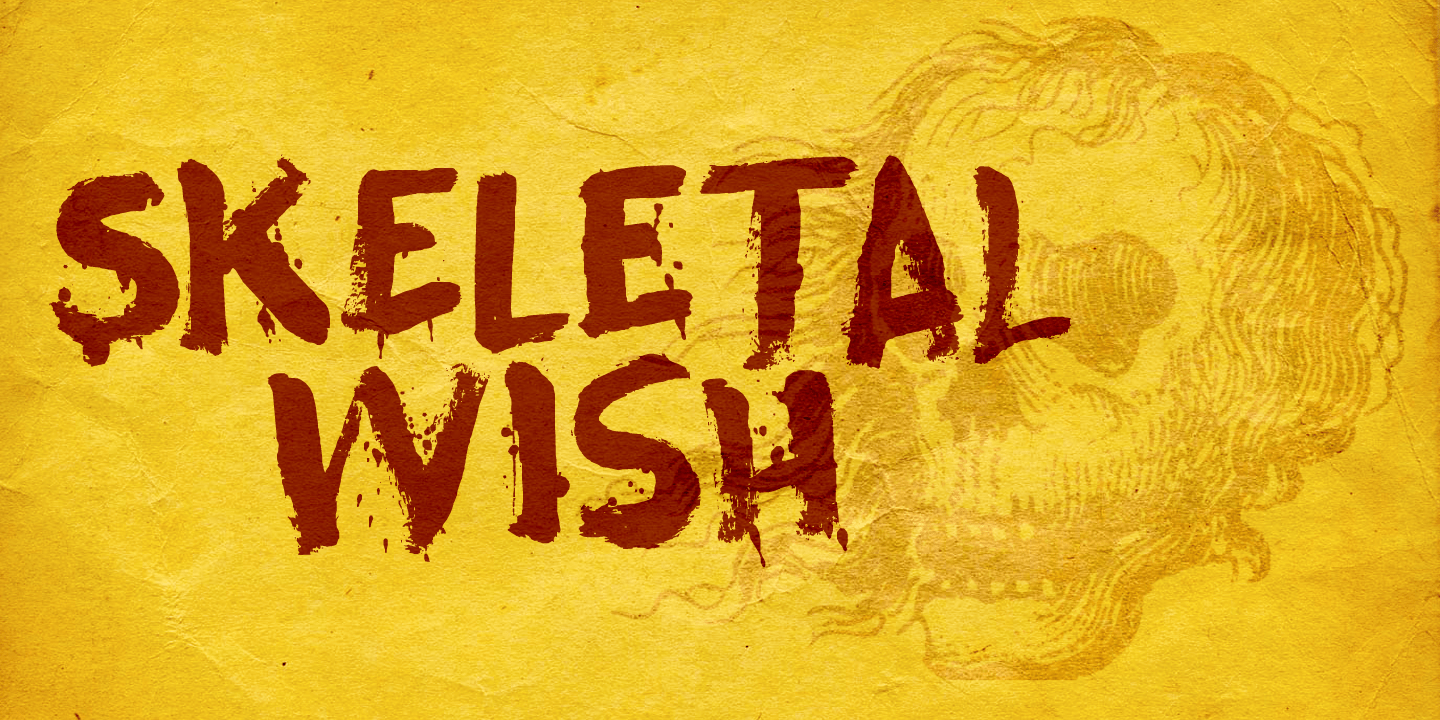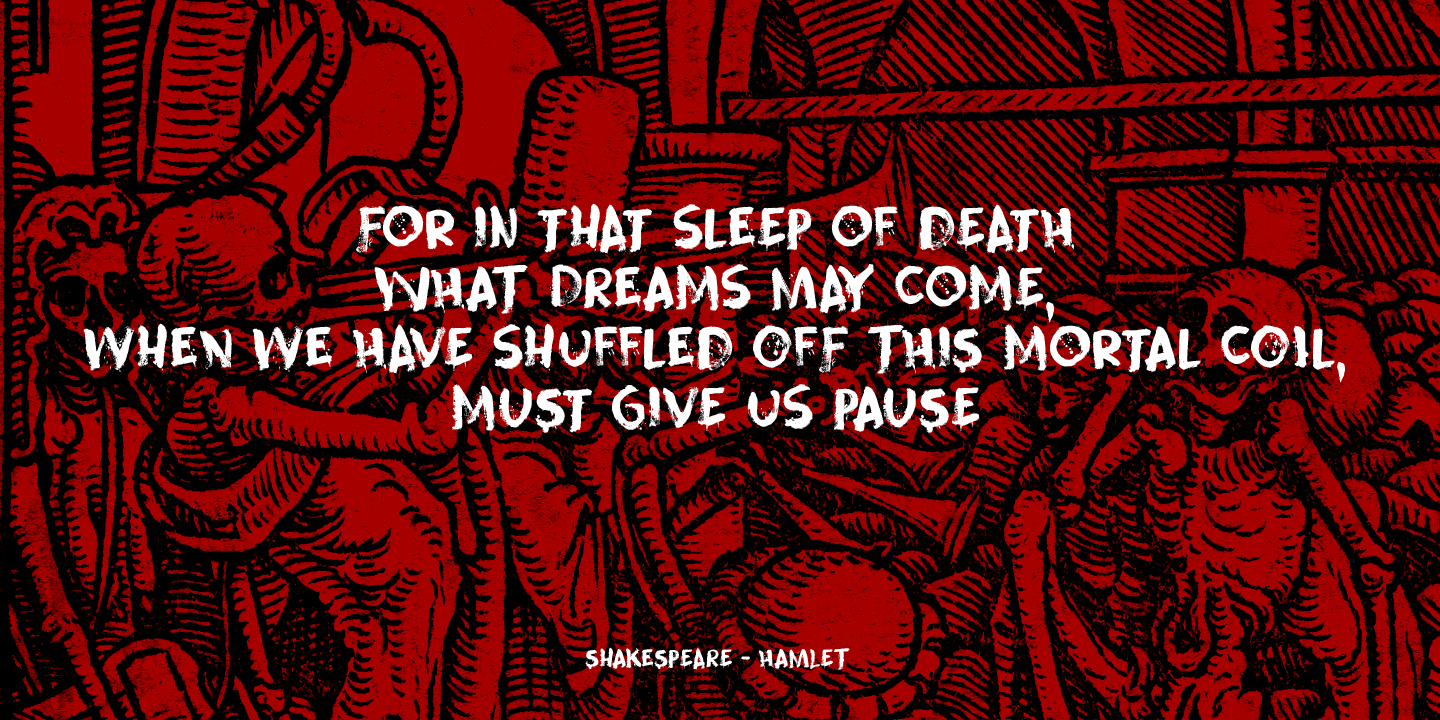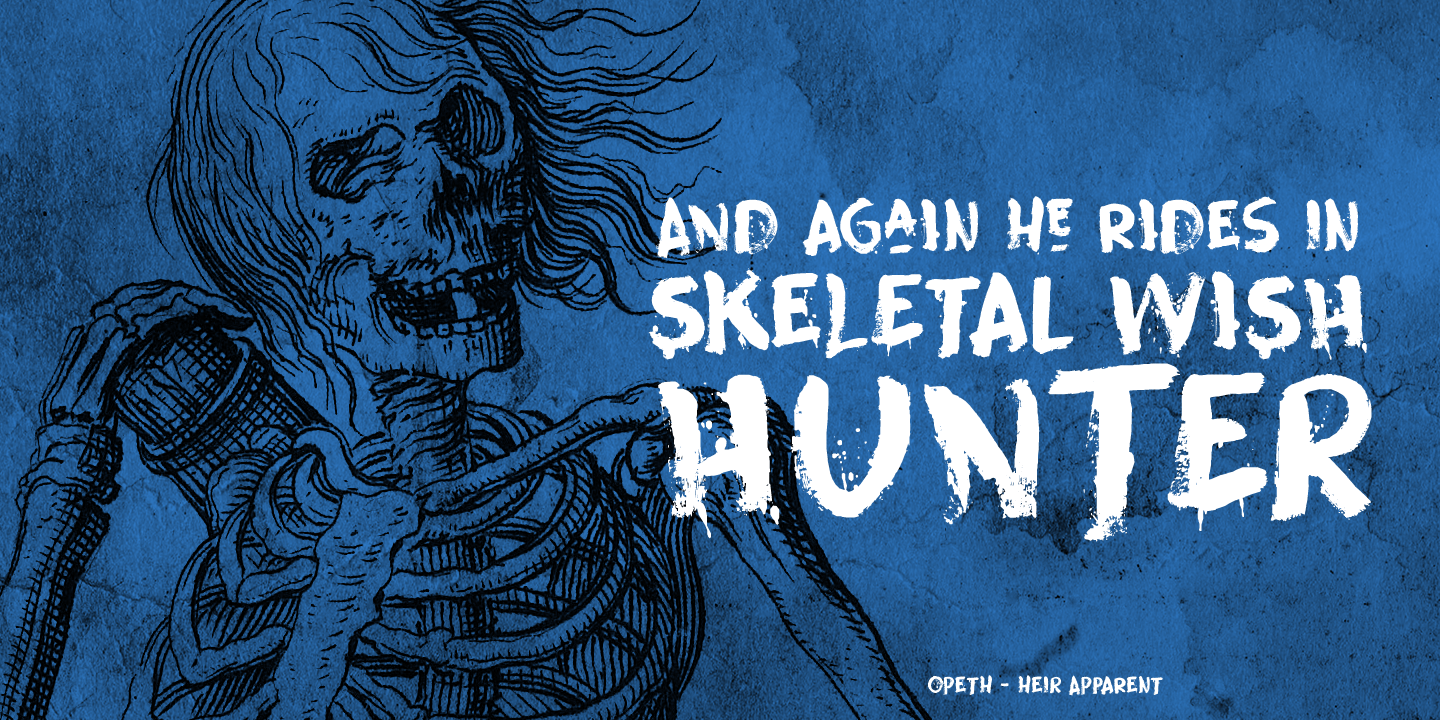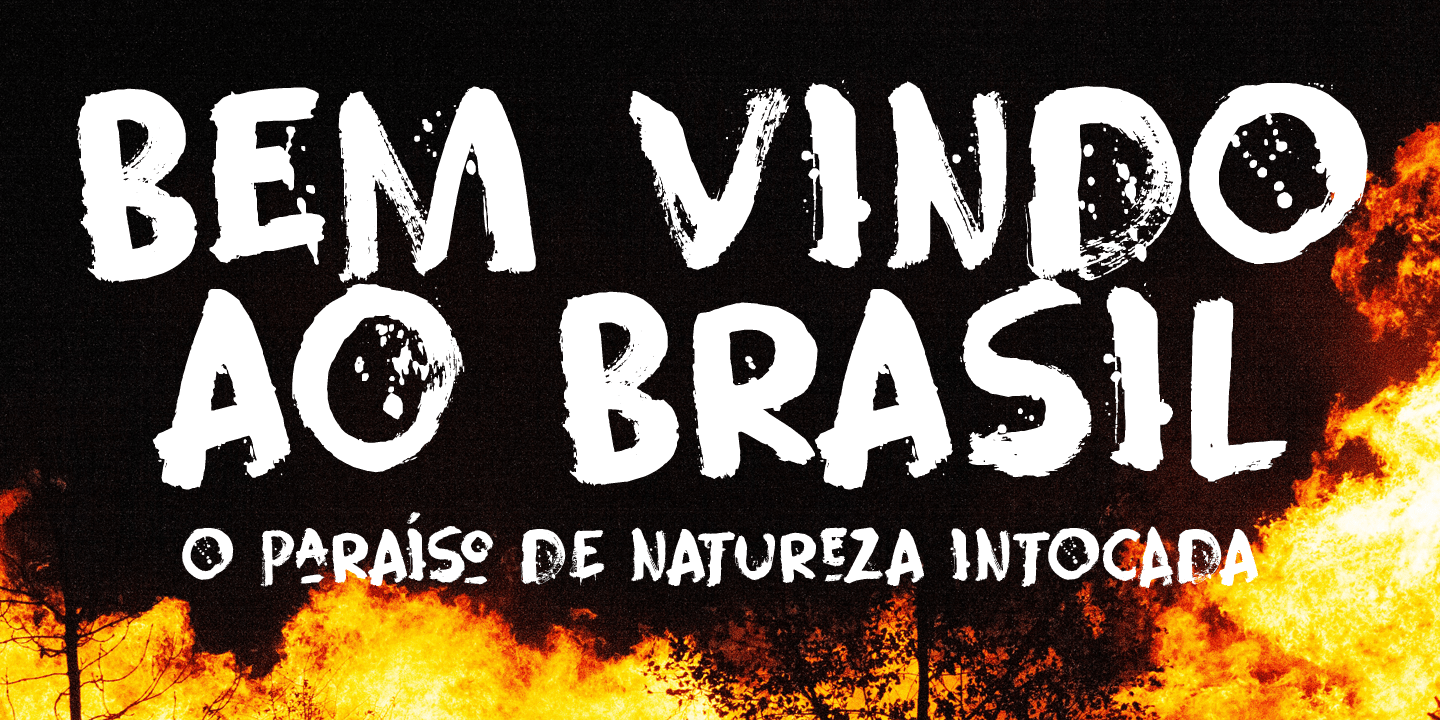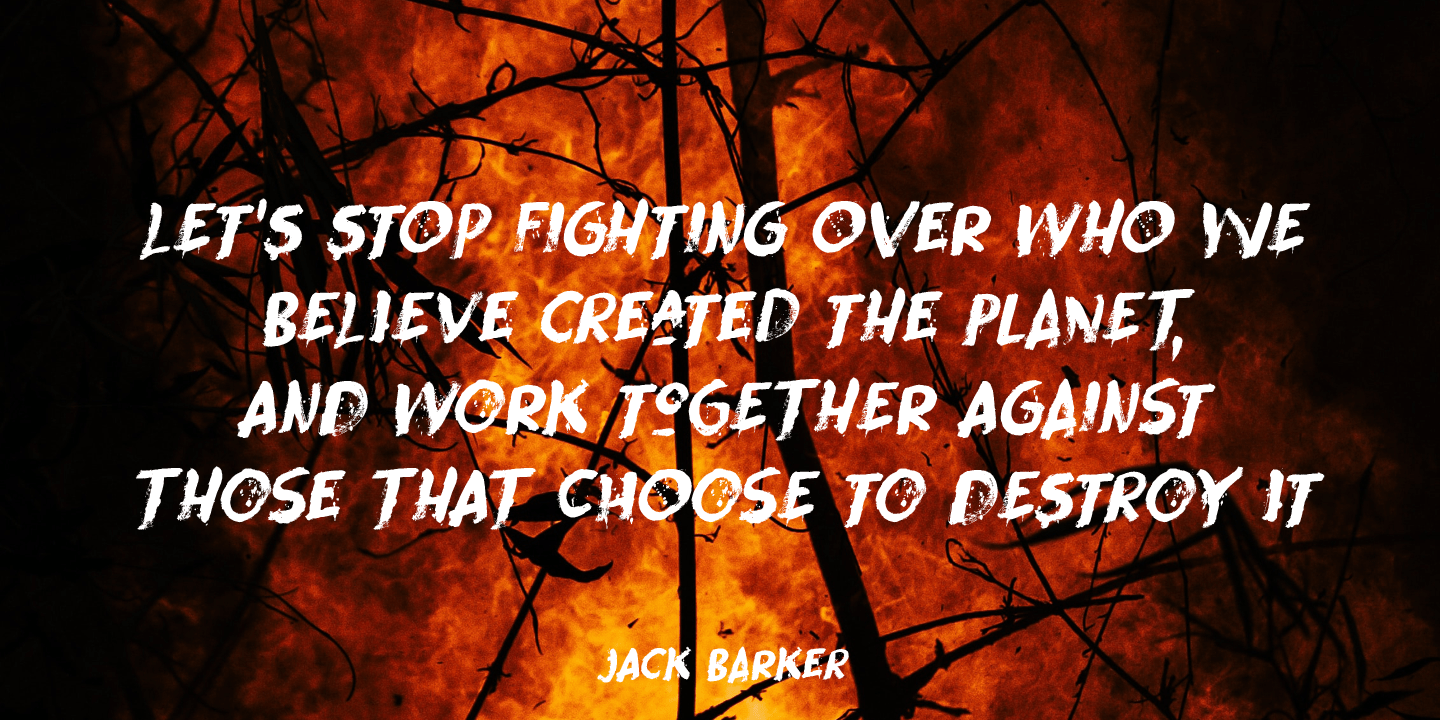
Skeletal Wish
Skeletal Wish is a line from one of my favourite Opeth songs: Heir Apparent. The lyrics are pretty veiled and bleak, describing the destruction and downfall of something that once was beautiful. I am worried about what is happening with our planet: the Amazon forest is burning down, our oceans are full of plastic and the earth is warming up. I had to think of this when I created Skeletal Wish and I thought the title was perfect.
Skeletal Wish is a heavy and scary halloween font. It comes with blobs, splatter, gore and whatever else you may need for your designs. It won't help save the Amazon rainforest, nor will it stop the flow of marine plastic, but you could use it to create a protest sign. After all, the change begins with you.